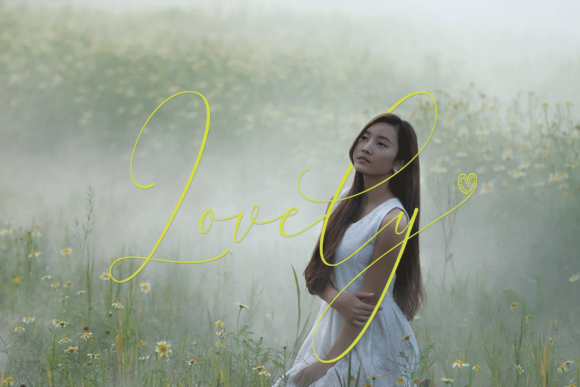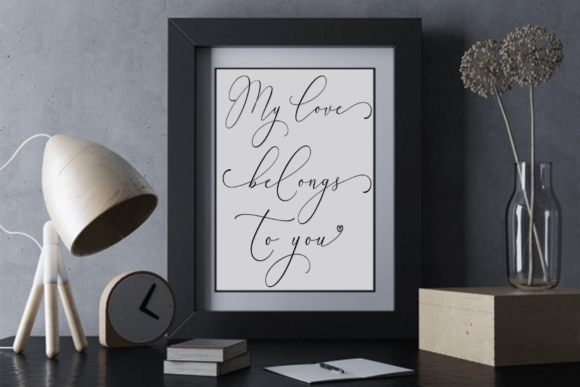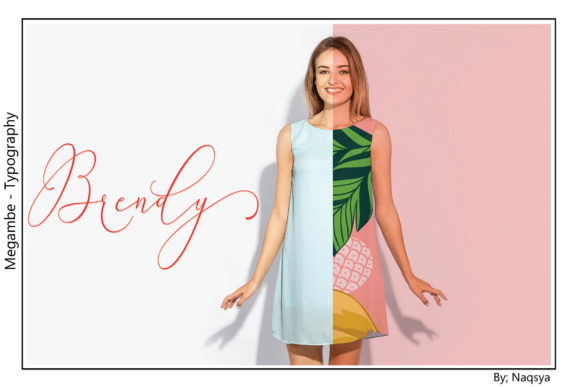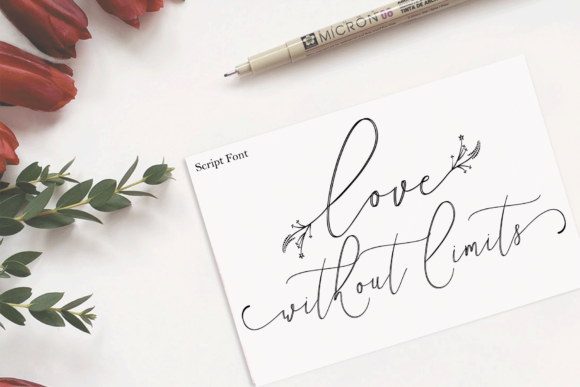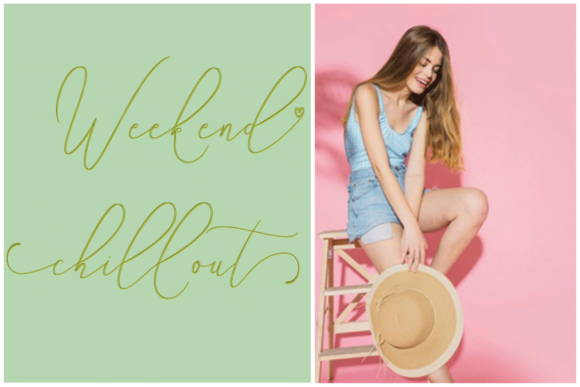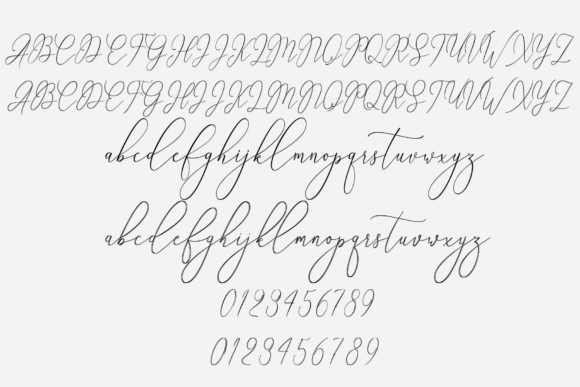
Introduction to Megambe Font
There’s nothing quite like the thrill of discovering a new design resource that elevates your creative project to the next level. For many designers, that moment comes when they stumble upon the perfect font – one that captures the essence of their vision and brings it to life. For those in search of that elusive perfect font, we’re excited to introduce you to the enchanting Megambe Font – a free download that’s sure to become your go-to choice for making elegant, stylish statements.
With its romantic appearance and high-quality design, Megambe Font is the perfect addition to any creative project. Whether you’re working on a wedding invitation, a personal blog, or a design portfolio, this elegant handwriting font is sure to bring a touch of sophistication and class to your work.
As a valuable design resource, Megambe Font offers a transparent background, making it easy to layer and combine with other design elements. Its versatility and high-quality design make it an ideal choice for designers of all levels, from beginners to seasoned professionals.
Key Features of Megambe Font
- High-quality design for creative projects: The Megambe Font is designed to provide a unique and visually appealing look for your projects, making it perfect for designers and artists.
- Unique and creative style: The font features a unique and creative style that is sure to add a touch of personality to any design, making it an excellent choice for designers looking to stand out.
Honest Review: Megambe Font
As a designer, I’m always on the lookout for high-quality design resources that can elevate my creative projects. The Megambe Font has been a recent addition to my toolkit, and I’m excited to share my honest review.
- ✨ High-quality design: The Megambe Font is beautifully crafted with intricate details and a unique style that sets it apart from other fonts.
- ✨ Transparent background: The font’s transparent background makes it easy to use with any background image or color, giving me more flexibility in my design projects.
- ⚠️ Limited font styles: The Megambe Font only comes in a few styles, which might limit its versatility for certain design projects.
- ⚠️ Not ideal for small text: The font’s intricate details can make it difficult to read in small text sizes, which is something to keep in mind when using it in body text.
Overall, I’m impressed with the Megambe Font’s high-quality design and transparent background. While it may have some limitations, it’s a great resource to have in your design toolkit, especially for creative projects where you want to make a statement.
To get the most out of the Megambe Font, experiment with different font sizes, colors, and styles. Combine it with other design elements to create a visually appealing and cohesive design. Don’t be afraid to push the boundaries and try new things – the Megambe Font is a versatile design resource that can help bring your creative project to life.